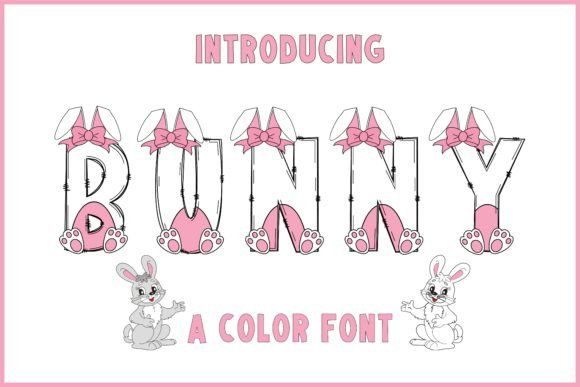
Are you looking for the perfect font to make your Easter or Spring-related designs stand out from the crowd? Look no further than Bunny Font, created by Color Studio.
Bunny Font is a colorful, decorative font that features brightly designed lettering. Its sweet and playful style is perfect for adding a touch of whimsy to any design project.
Whether you're creating invitations for an Easter egg hunt, designing a spring-themed website, or crafting a creative CV that showcases your unique style, Bunny Font is the perfect choice.
With Bunny Font, you'll instantly elevate your design and catch the eye of your audience. Its simple yet strong visual effect is sure to captivate and engage your viewers, making your design more appealing than any others.